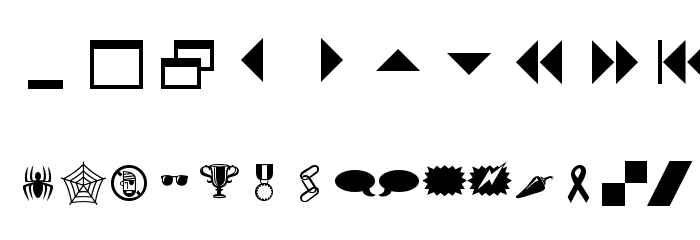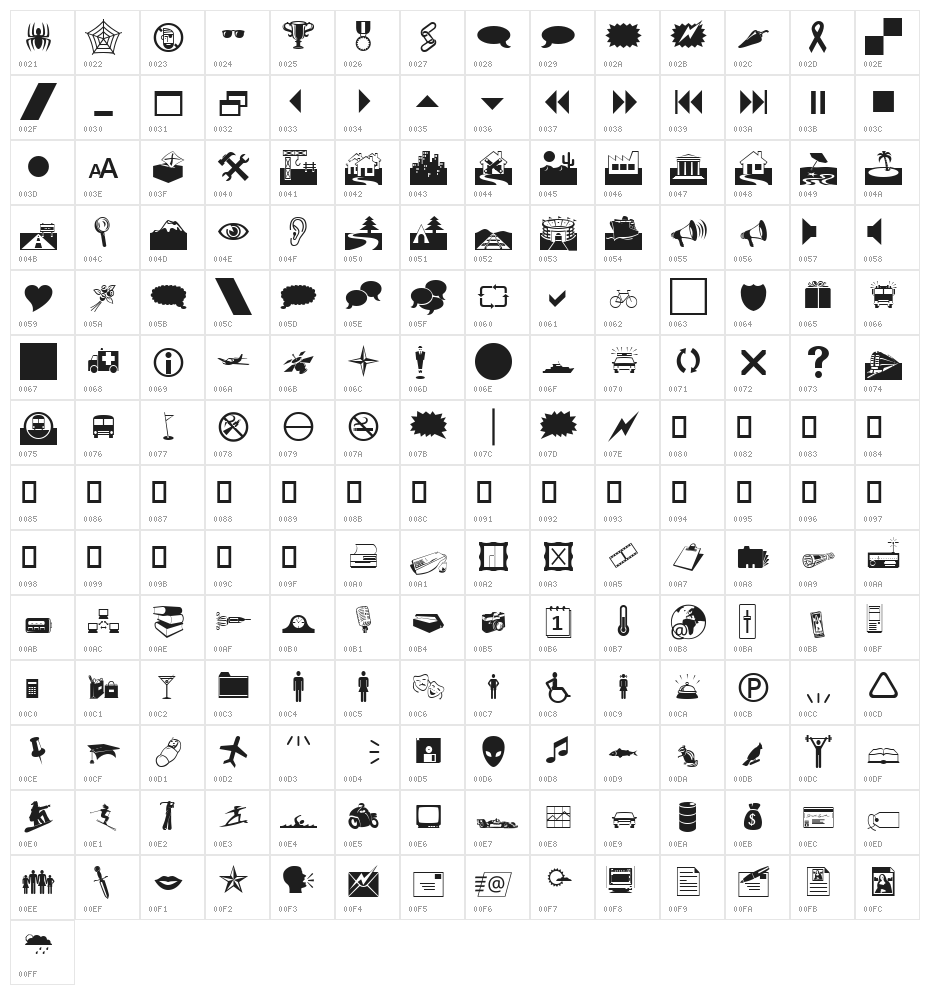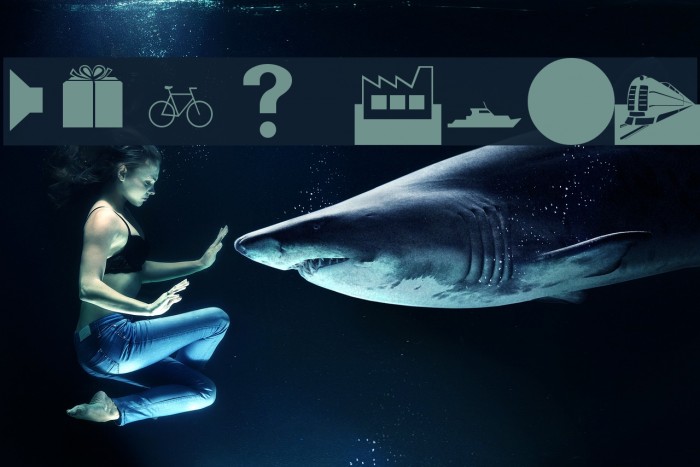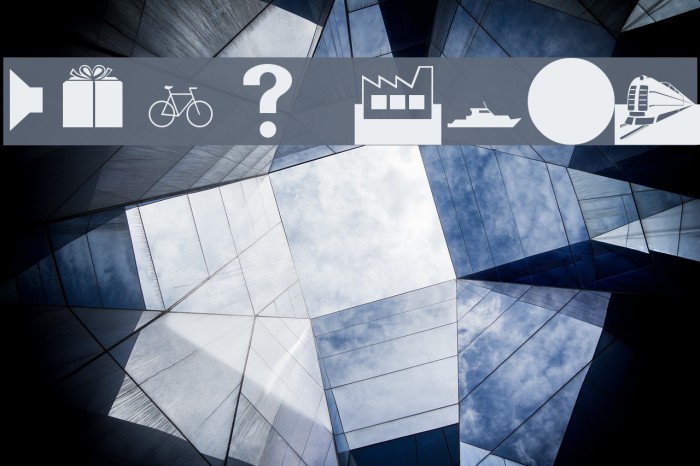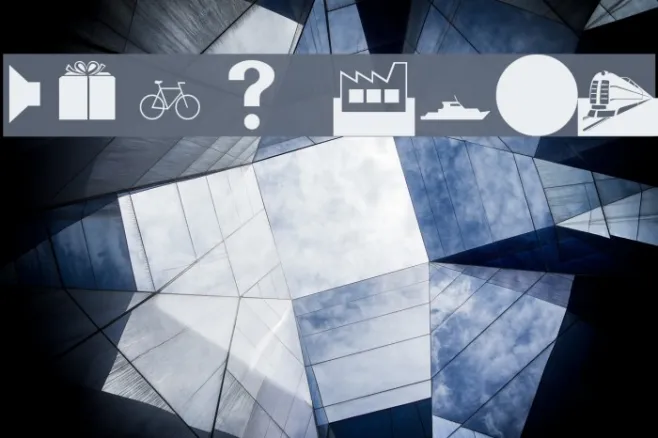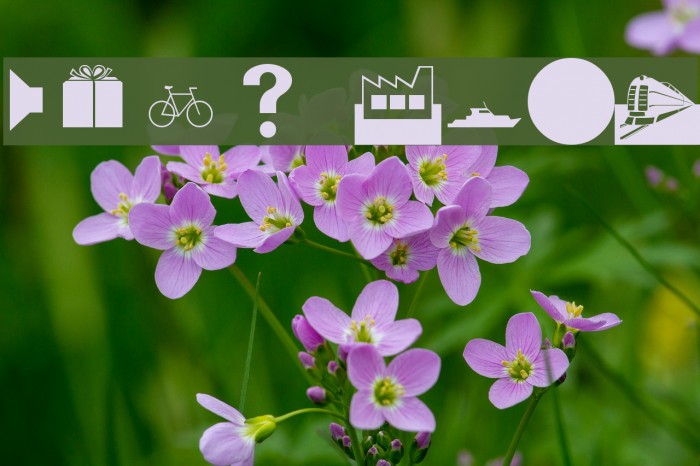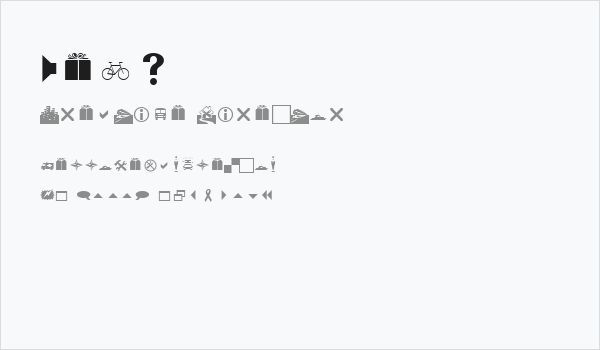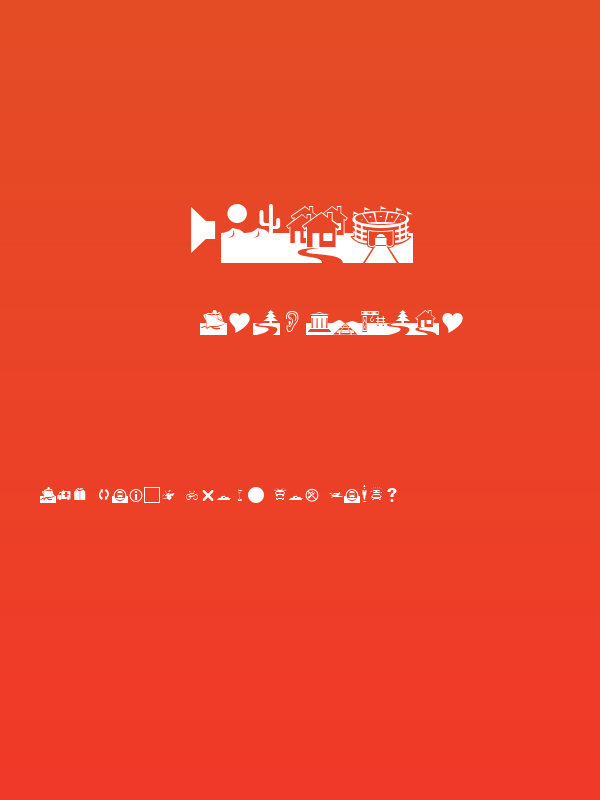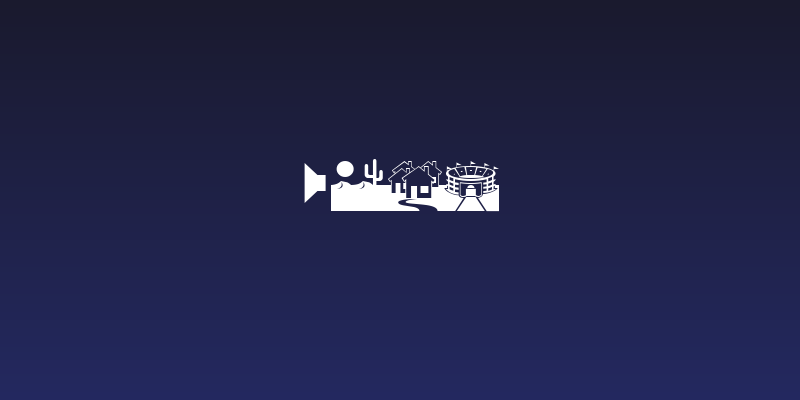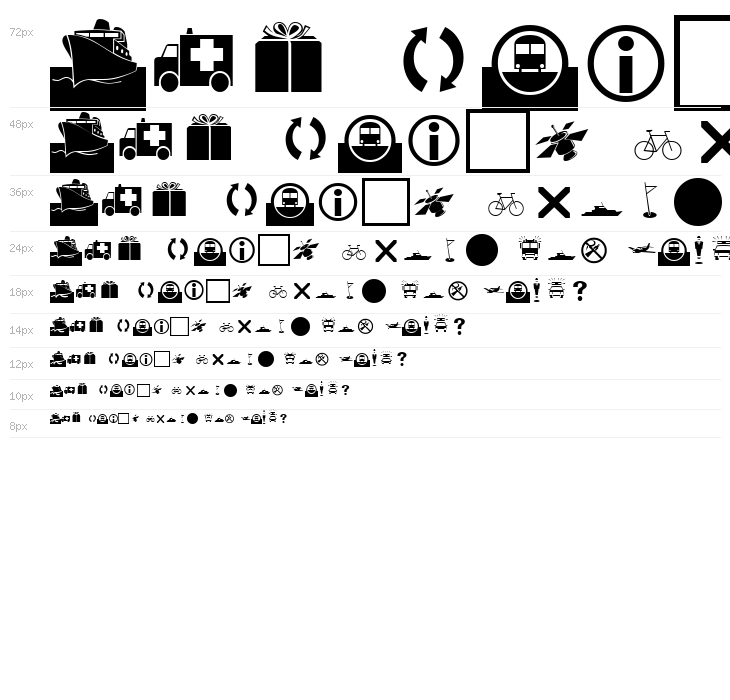
Webs Font
Webs Description
A pictogram and icon-based dingbat set featuring a wide variety of symbols including cityscapes, transportation, nature, communication, navigation, awards, and miscellaneous objects. The icons are bold, highly stylized, and primarily monochrome, making them suitable for signage or infographics.
| Overall Style | Decorative, Modern |
| Use Case | Icons, Signage, Infographics, Maps |
| Proposed Projects | Wayfinding systems, infographics, educational materials, maps, digital interfaces, signage, presentations. |